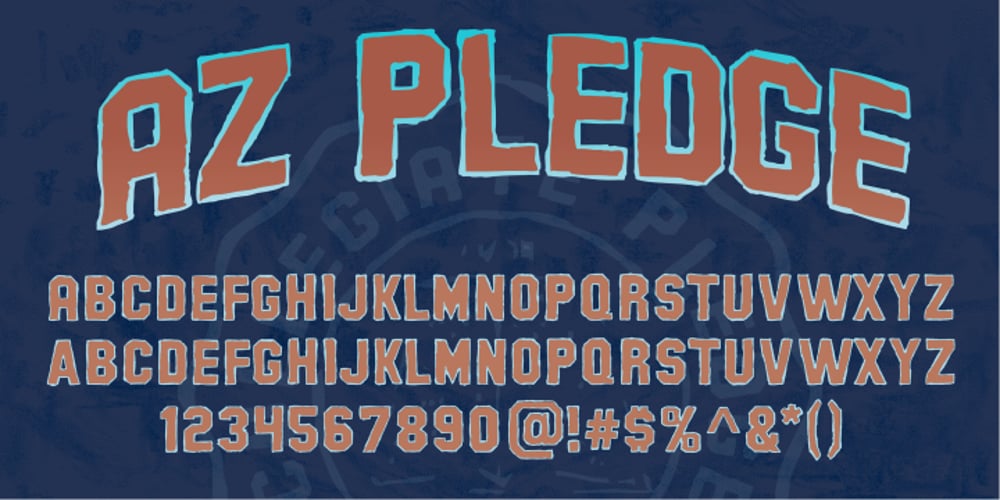
AZ Pledge
AZ Pledge font
AZ Pledge Font Family was designed by published by Artist of Design. AZ Pledge contains 2 styles and family package options. AZ Pledge font was inspired from old worn collegiate T-shirts. This font utilizes an “old look” to the line work which is designed to have a “worn feel” to it. Included is a custom AZ Pledge Outline that compliments this AZ Pledge font. Ideal for use as headline or sub-head text in you design.